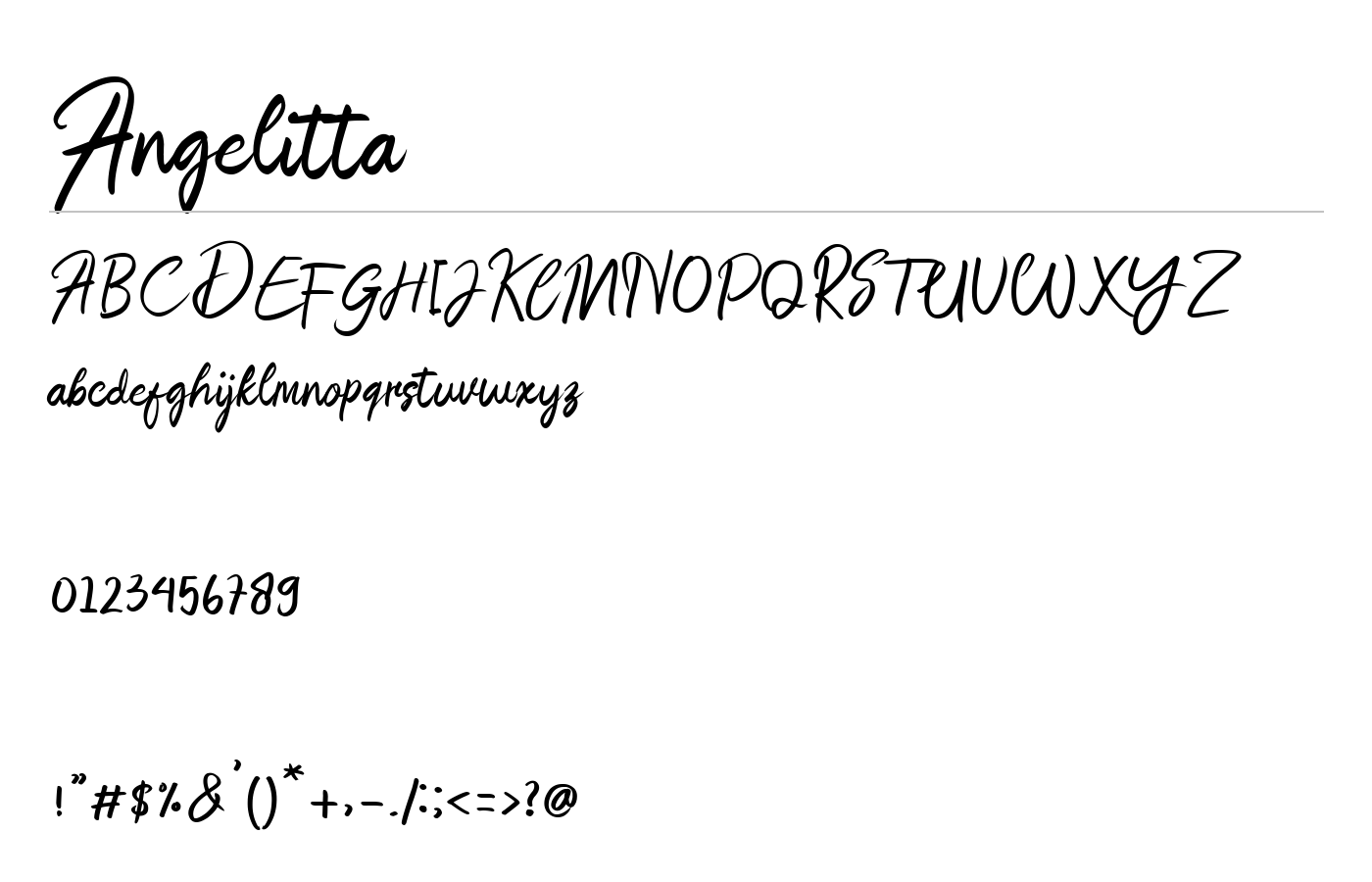
Angelitta is a stylish, modern script font with a smooth, handwritten feel that combines elegance and casual charm. Its slender, flowing letterforms and moderate contrast give it a friendly yet refined personality, making it perfect for branding, invitations, and creative projects where a personal touch is desired. This font works especially well in designs that need warmth and sophistication without feeling overly formal.
Angelitta Font
About Angelitta Font
| Font family | Angelitta Font |
| Designer | Letterday Studio |